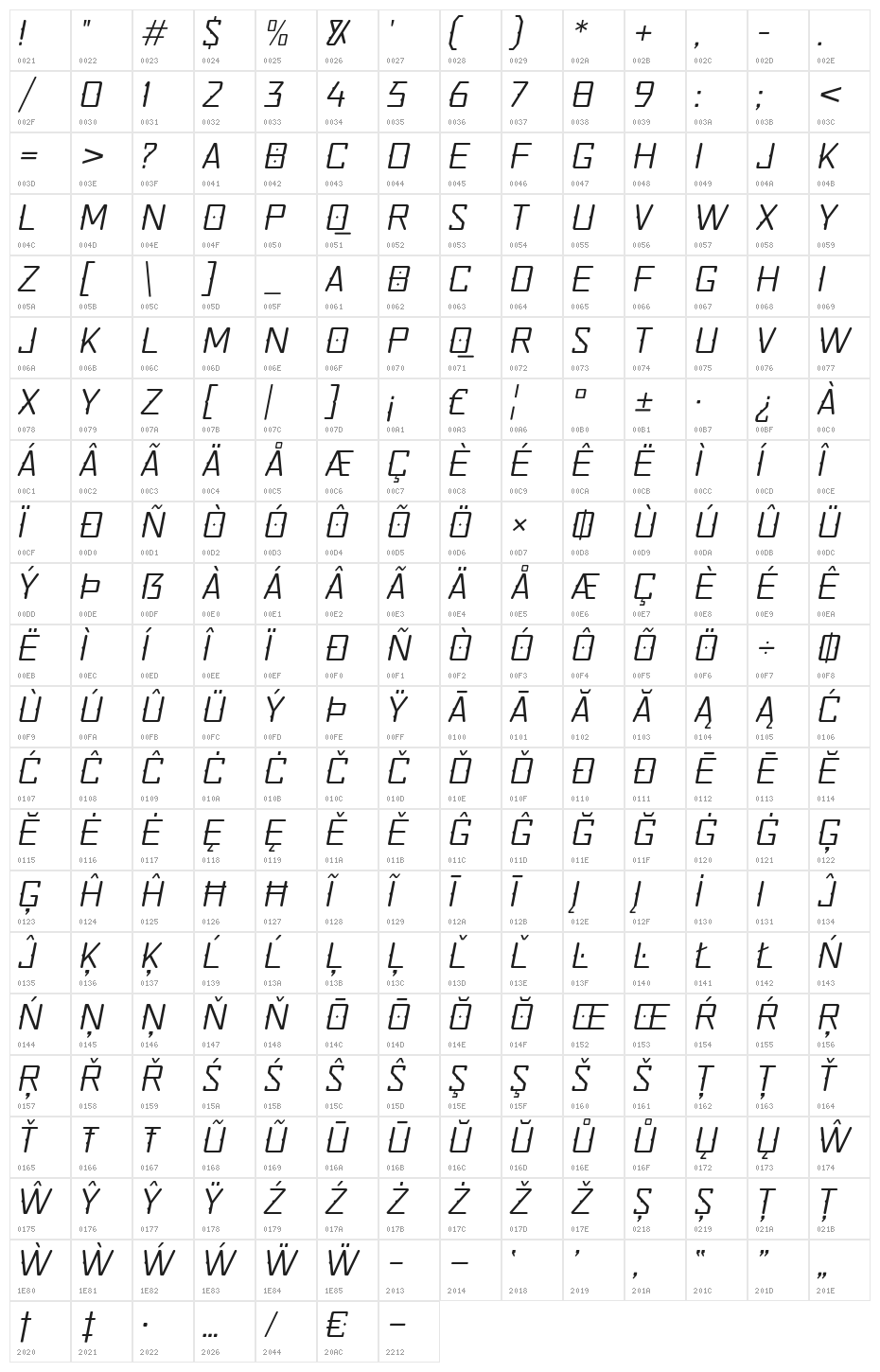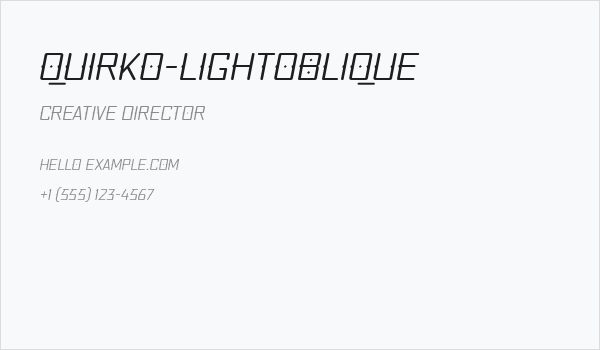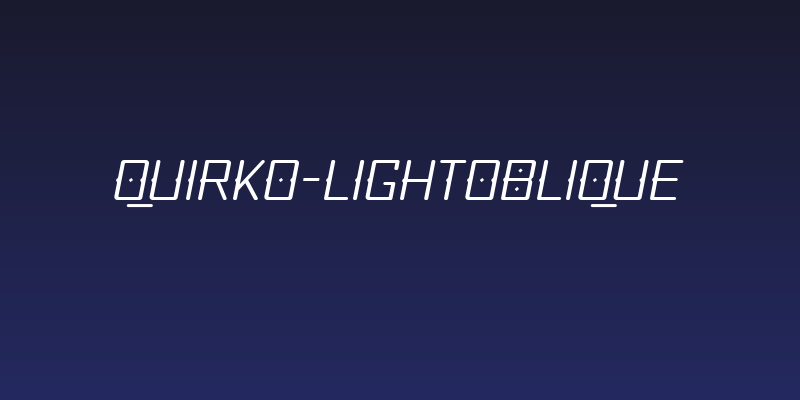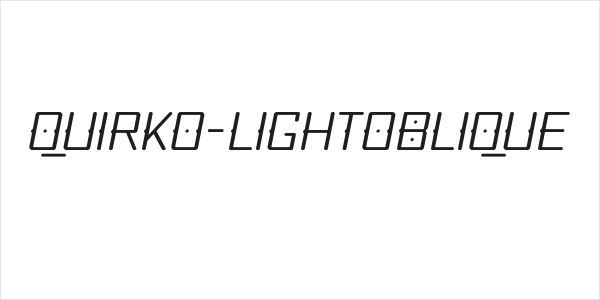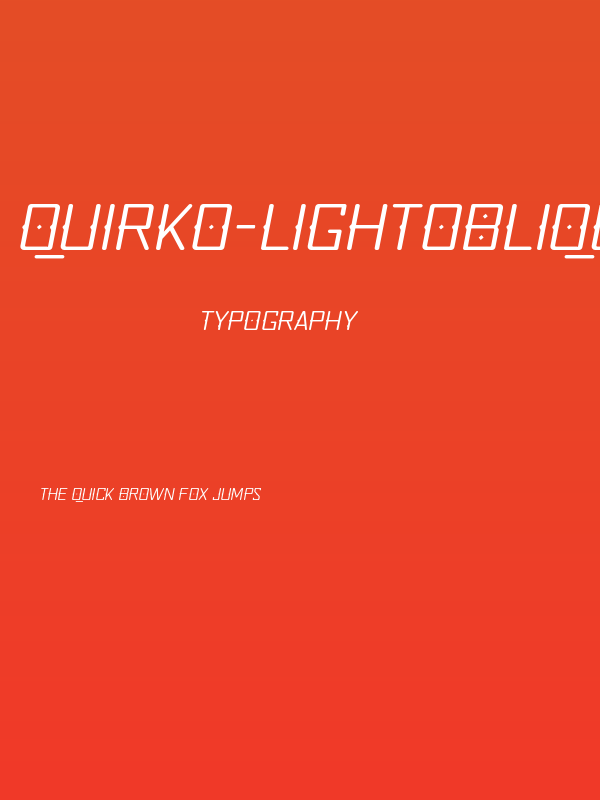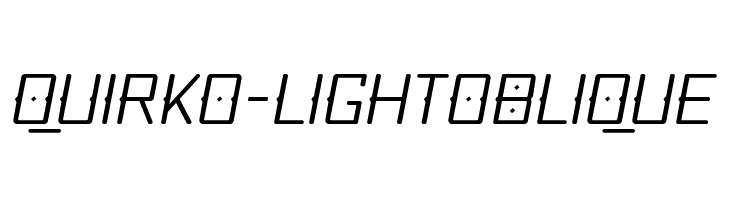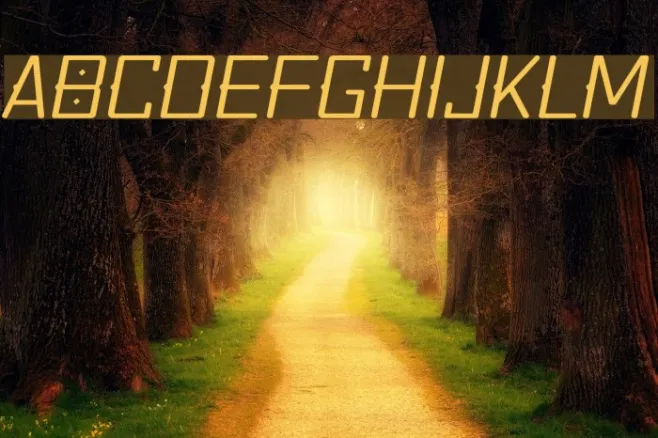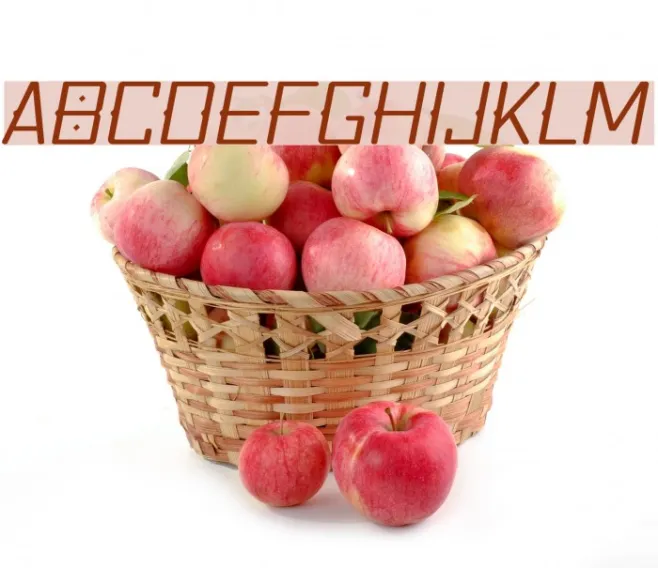
Quirko-LightOblique Font
Quirko-LightOblique Description
This font features a modern, geometric style with a distinct oblique slant, giving it a dynamic and forward-moving appearance. The characters are constructed with clean, straight lines and sharp angles, creating a sense of precision and clarity. The uppercase and lowercase letters maintain a consistent height, contributing to a uniform look. The numerals are equally structured, ensuring readability and balance. Special characters are designed to complement the overall aesthetic, making this font versatile for various applications. Its light weight and open forms enhance legibility, while the oblique angle adds a touch of sophistication and uniqueness.
| Use Case | Logos, Headlines, Display text |
| Proposed Projects | Ideal for tech branding, modern advertising, and innovative product packaging. |